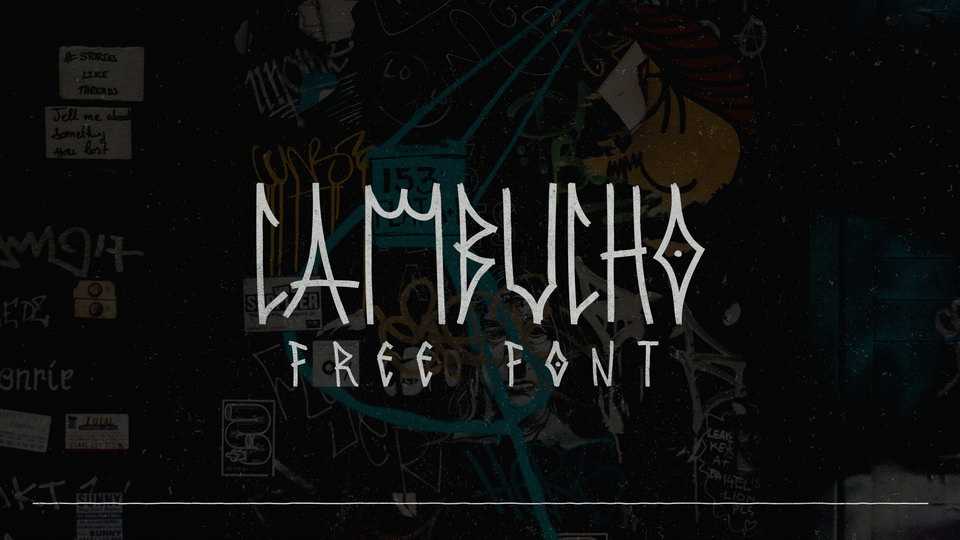
Download Cambucho font, a unique hand painted display typeface inspired by street art and graffiti. Cambucho font is perfect for urban design, tags, apparel, prints, covers, posters and more.
Designer: Gonzalo Gallardo